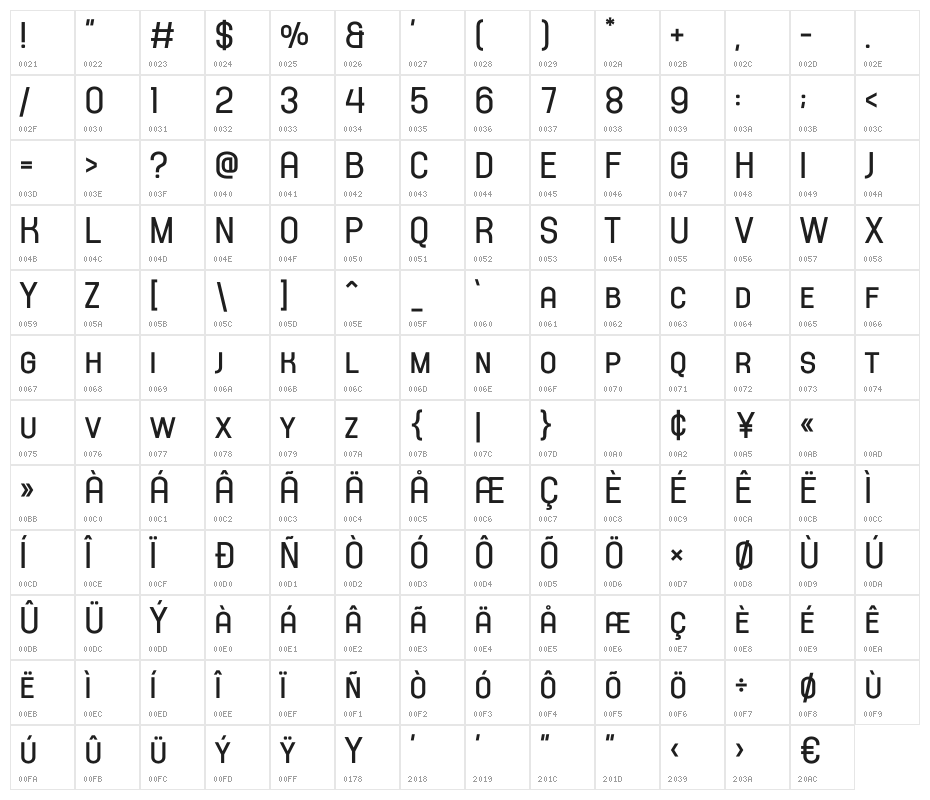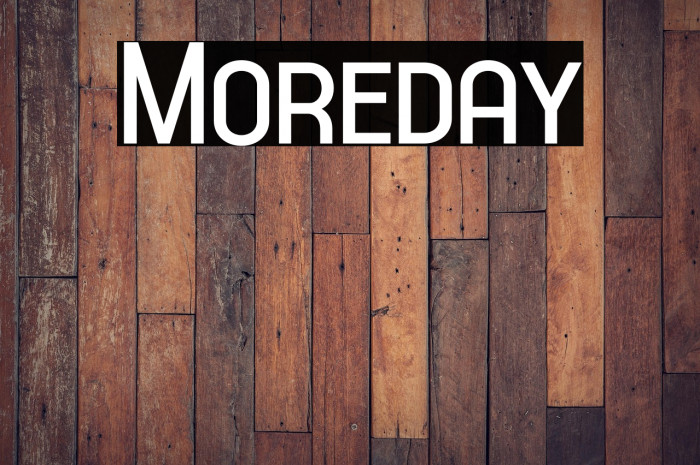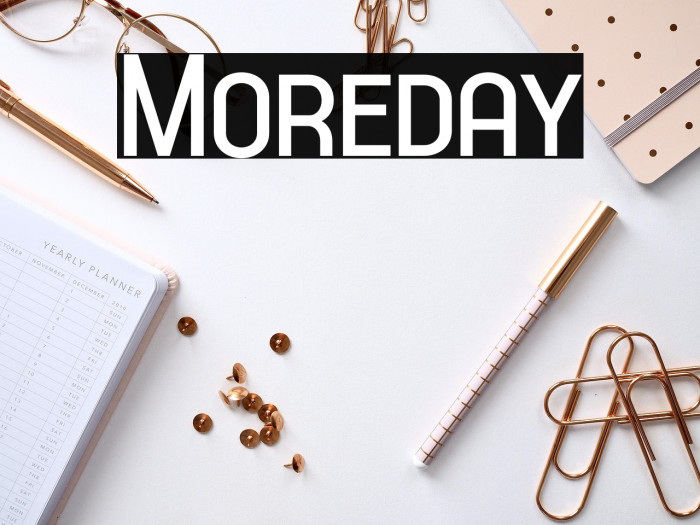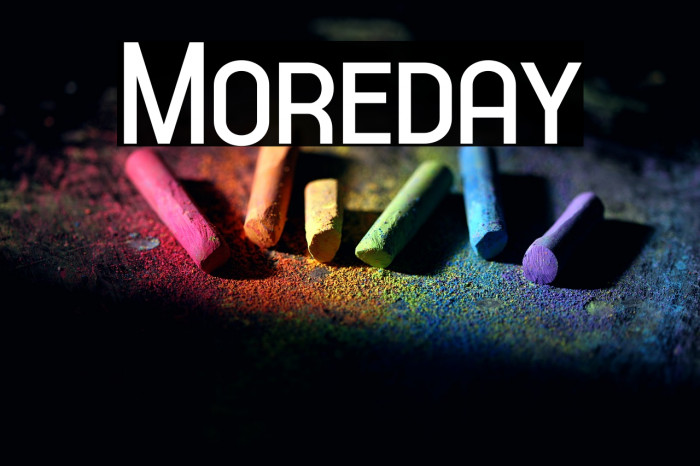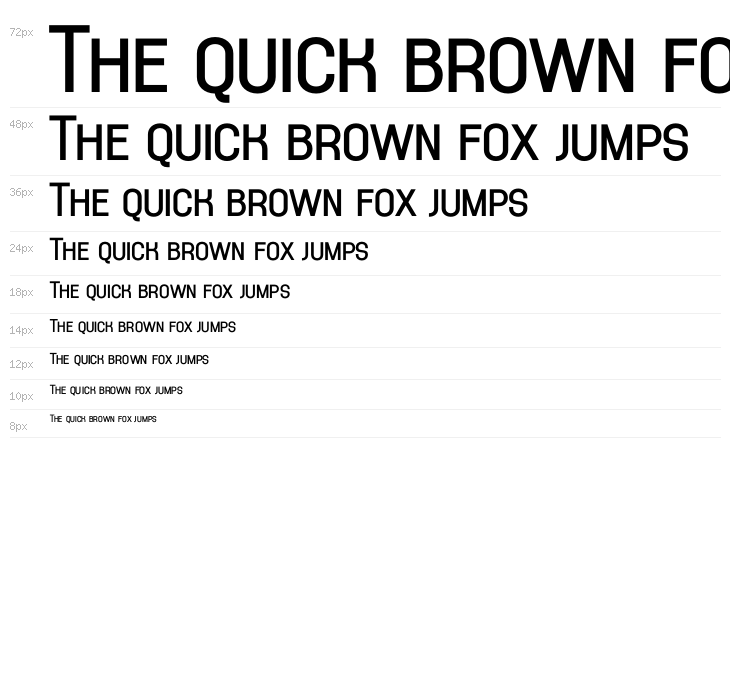
Moreday Font
Moreday Description
This font features a clean, modern sans-serif style with geometric influences. The characters are well-proportioned, offering a balanced and harmonious appearance. The uppercase and lowercase letters maintain a consistent design, with rounded edges and a uniform stroke width that conveys a sense of stability and professionalism. The numerals are clear and legible, making them suitable for various applications. Special characters are included, maintaining the same design ethos, ensuring versatility in usage. Overall, this font is ideal for projects that require a contemporary and sleek aesthetic.
| Use Case | Headlines, Body text, Logos |
| Proposed Projects | Ideal for branding, web design, corporate materials, and editorial layouts. |